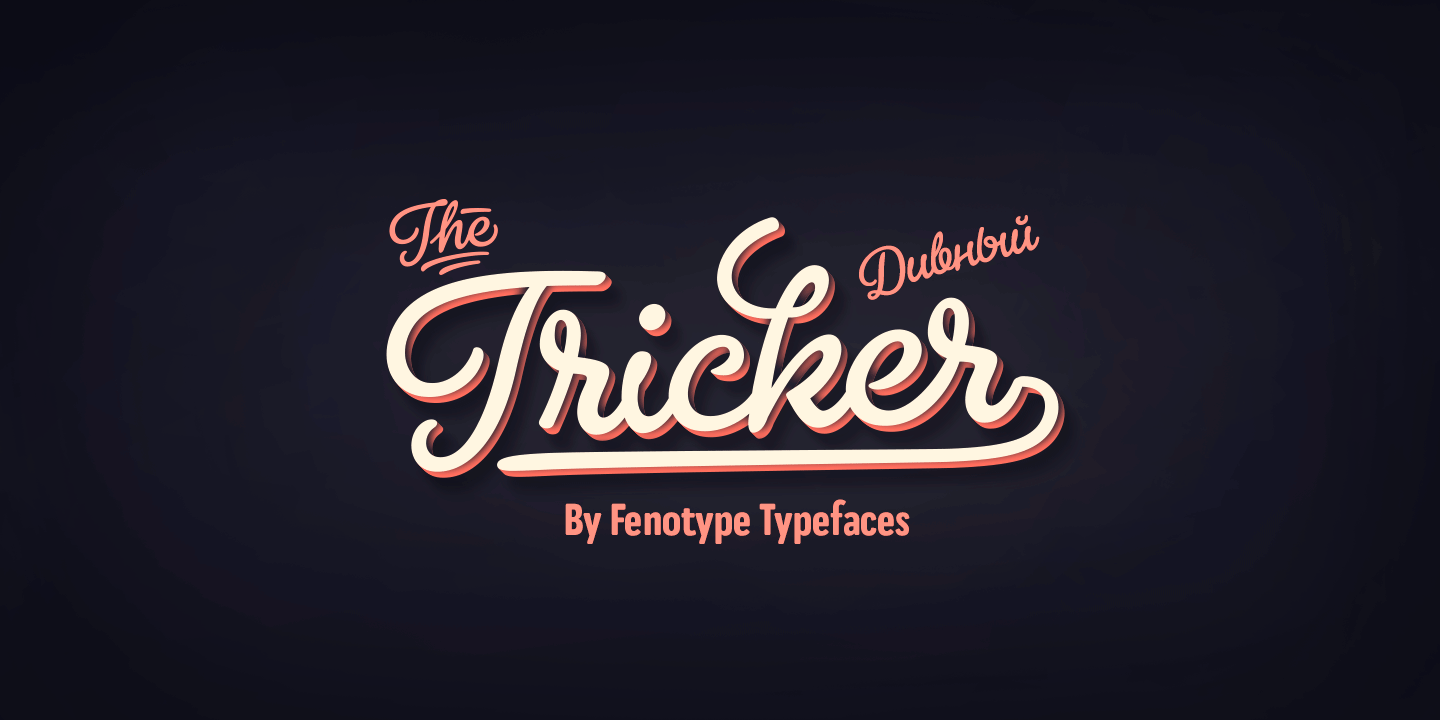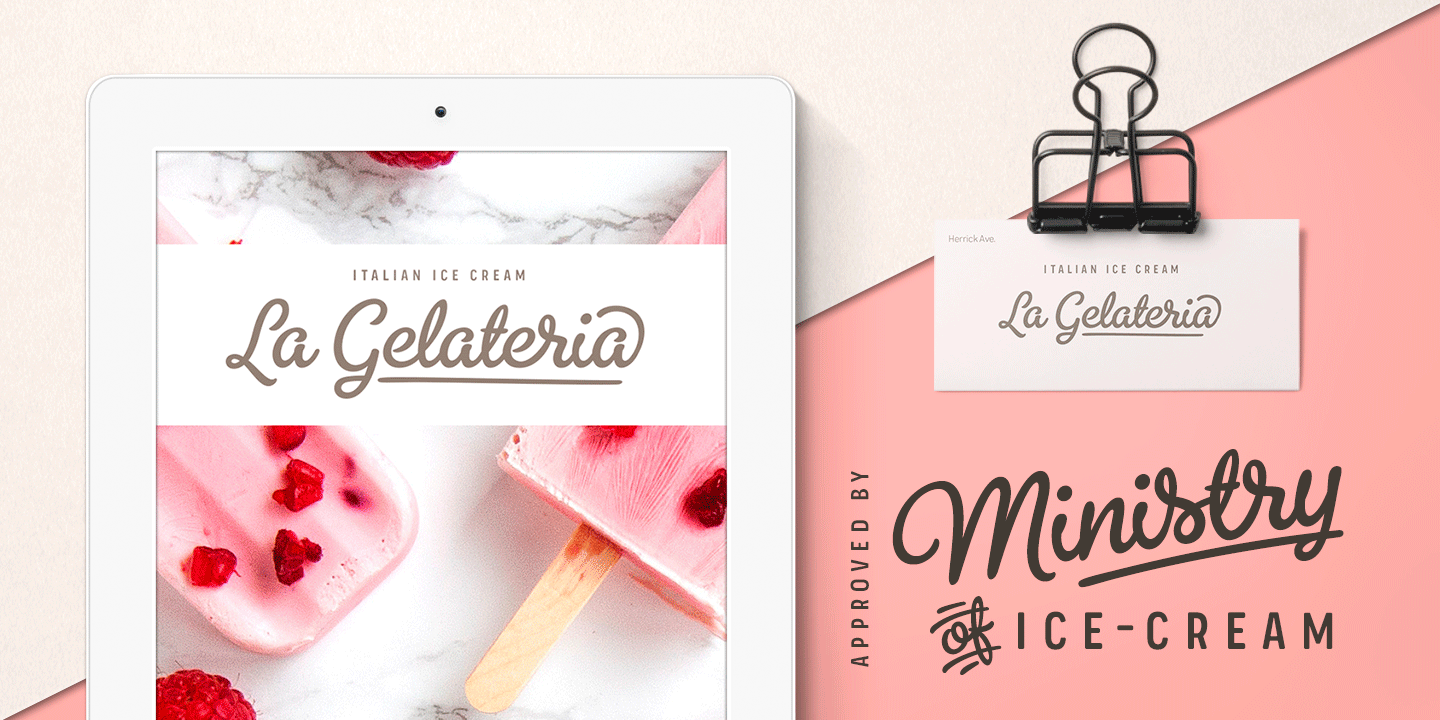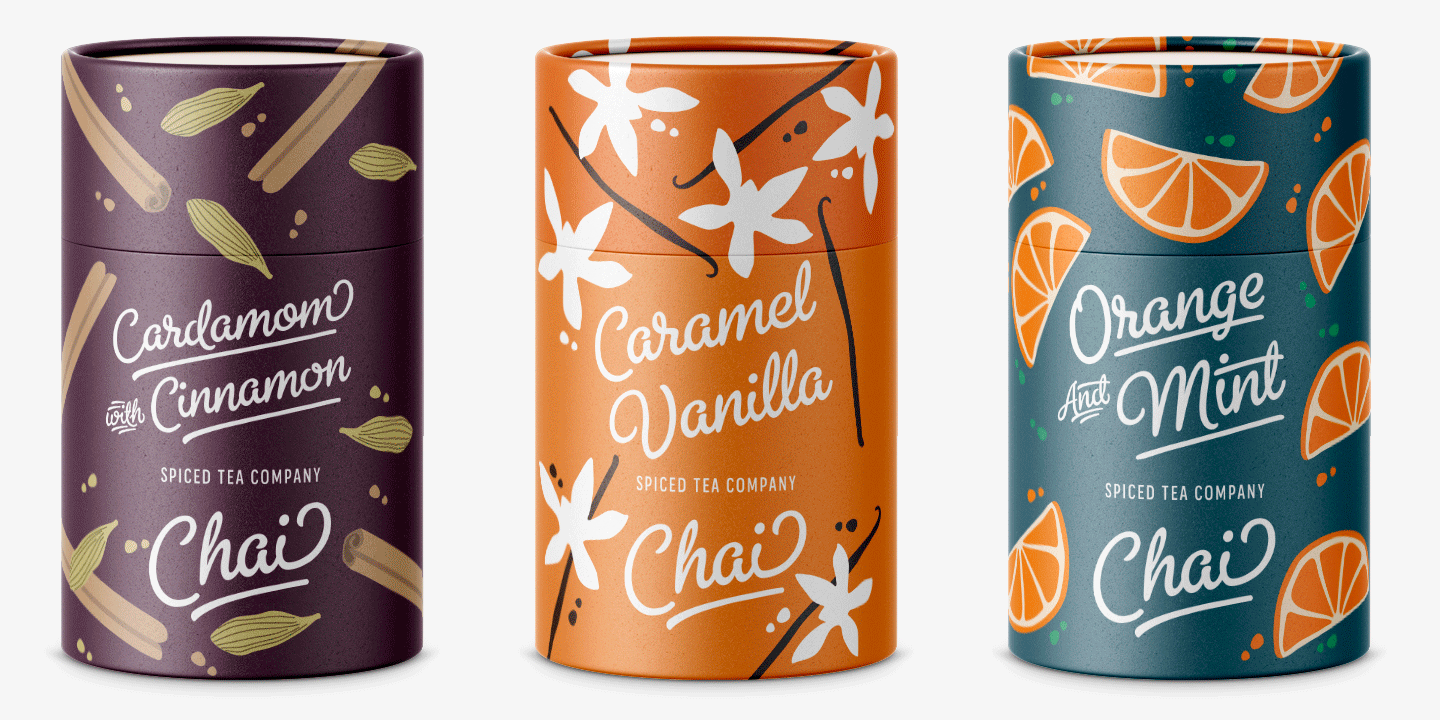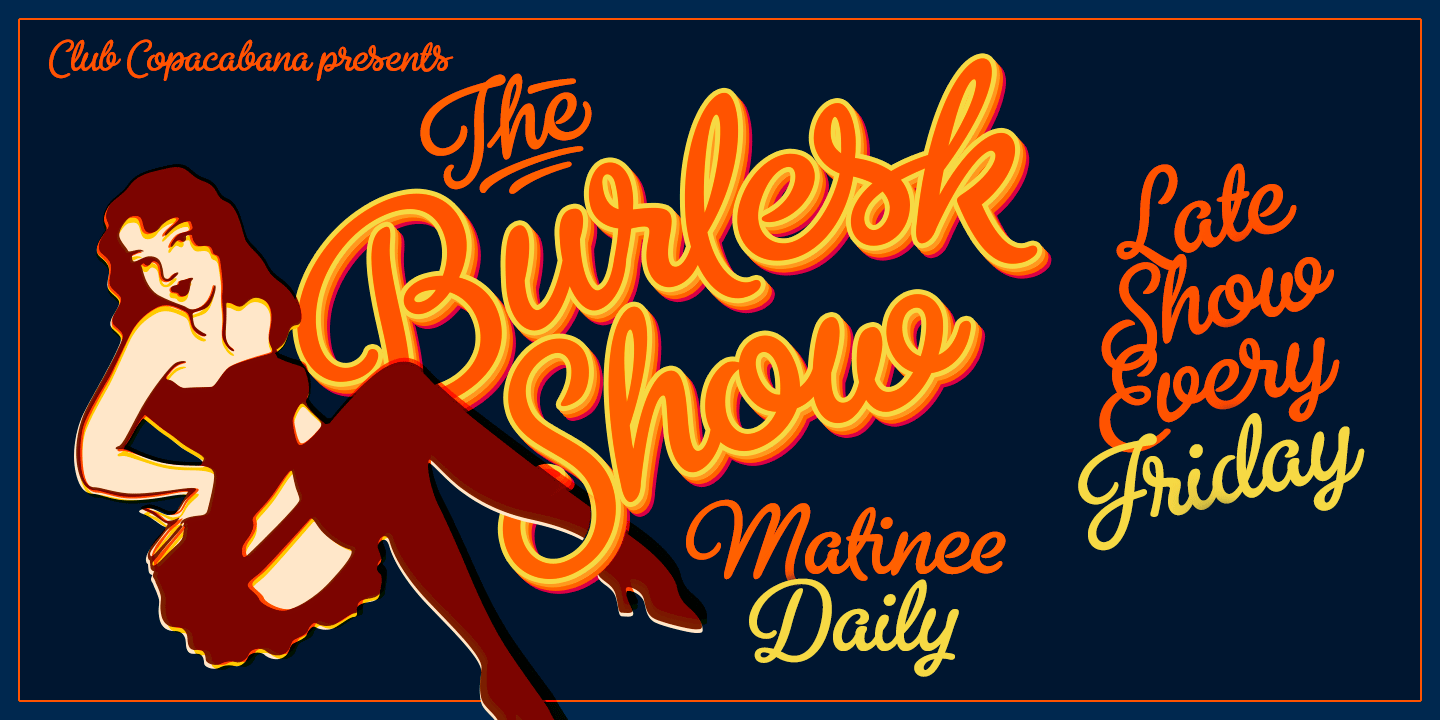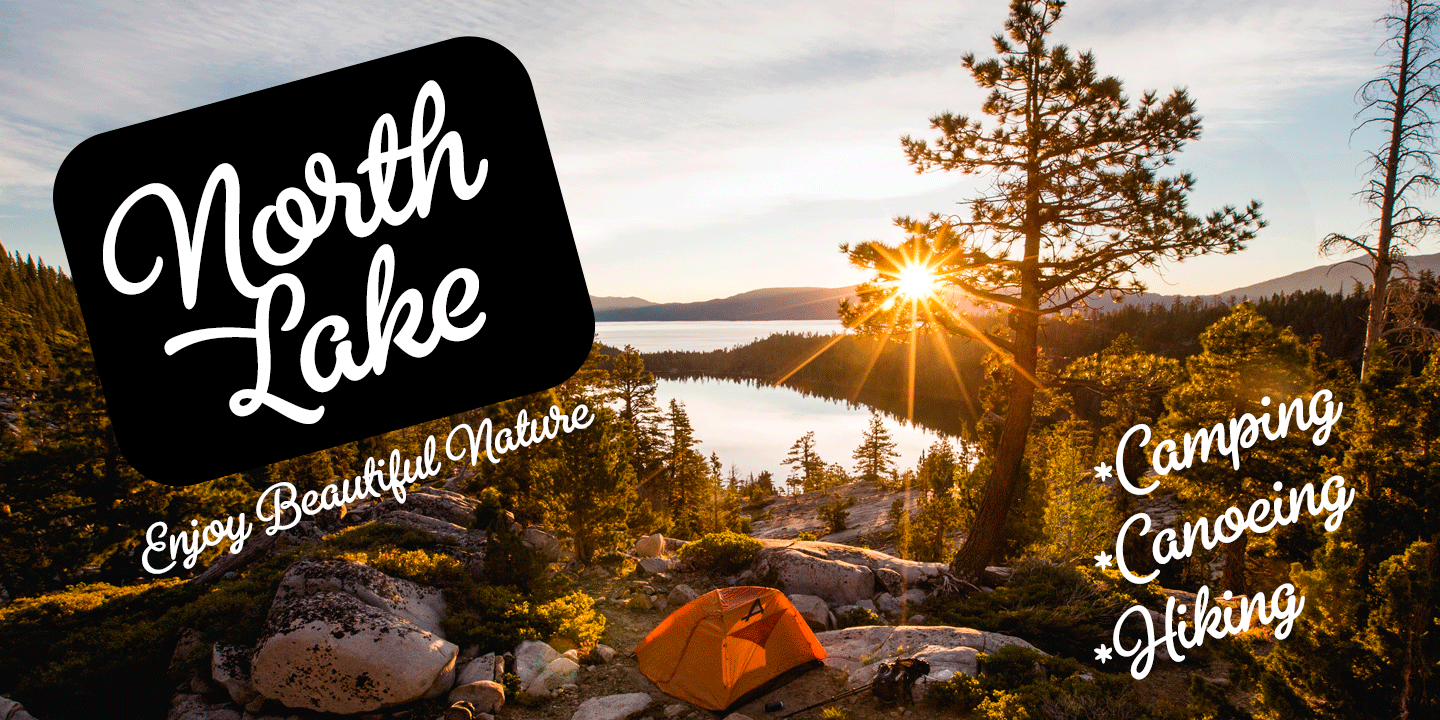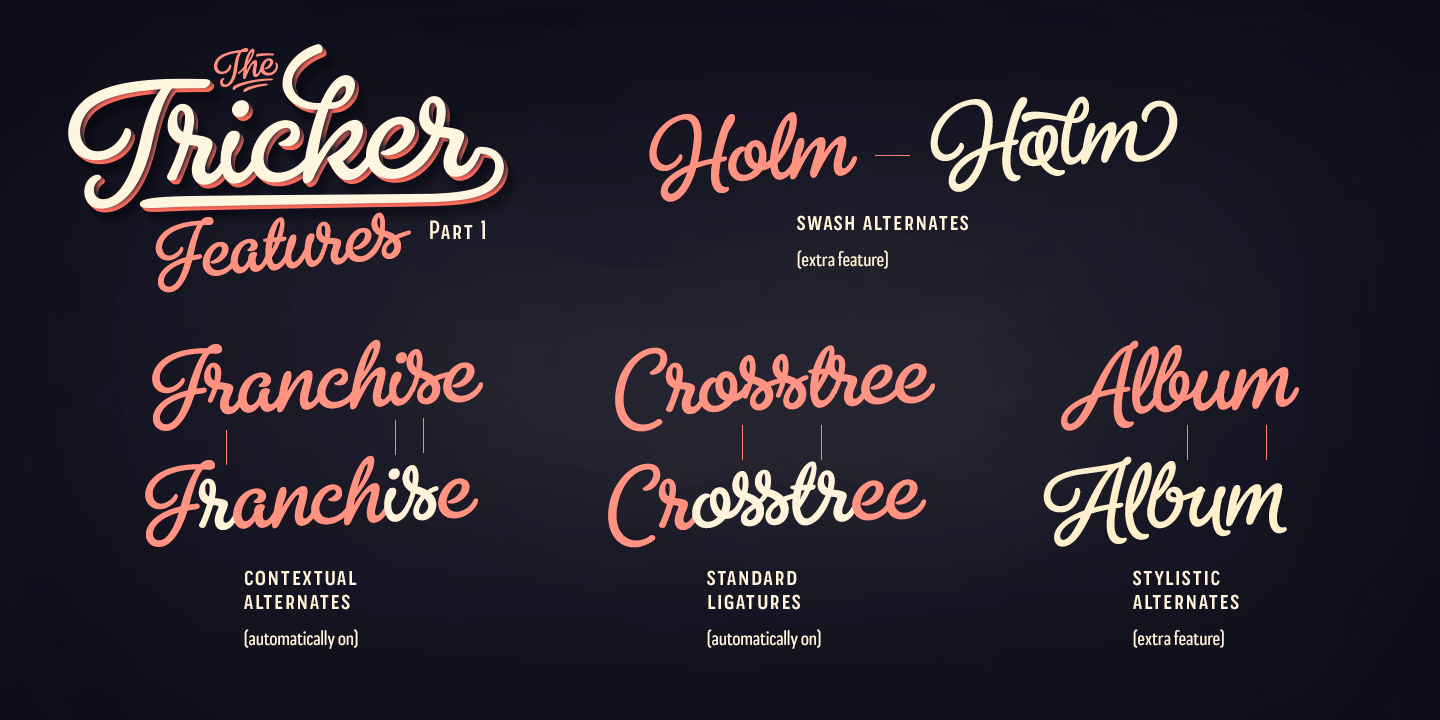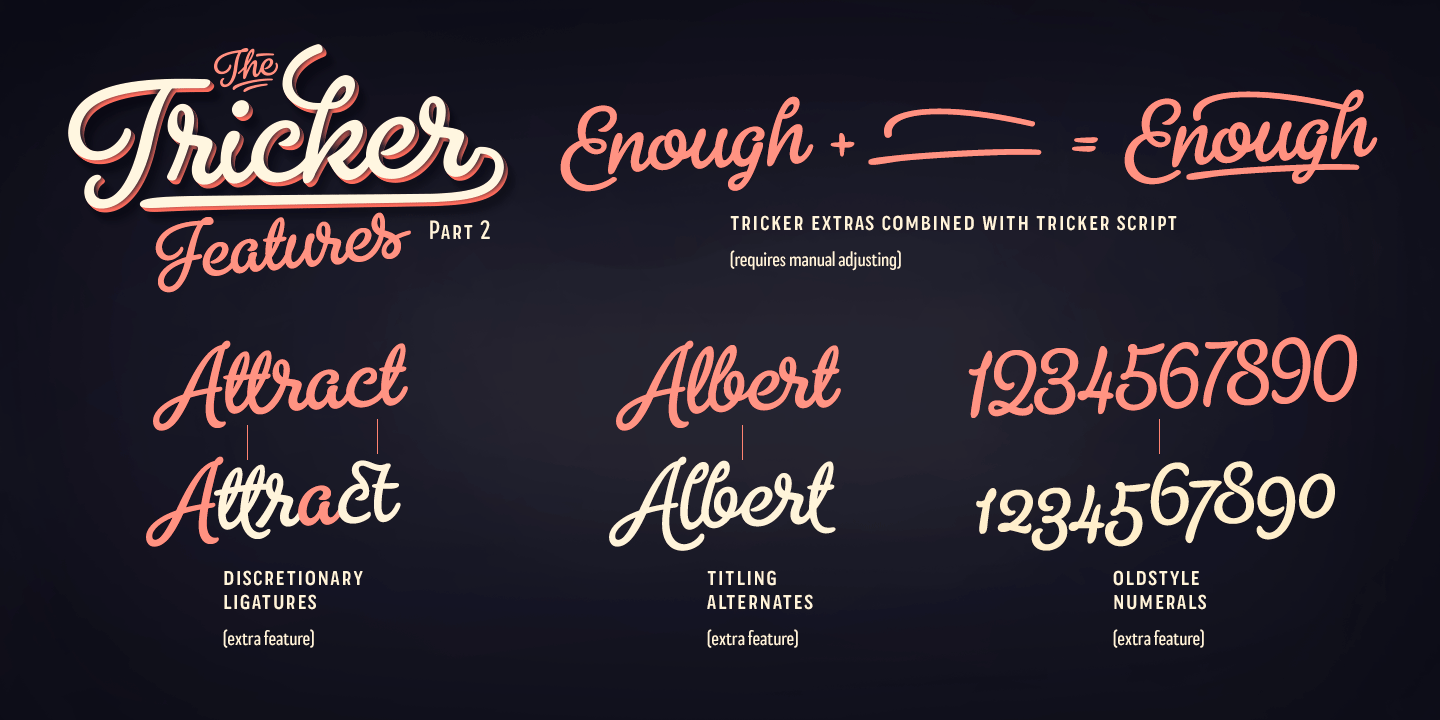
Tricker
Tricker is a smoothly rolling connected script family of two weights. Tricker has low contrast and soft features. It sports over 700 glyphs and is packed with OpenType features: Contextual Alternates and Standard Ligatures are automatically on and that's how you should normally keep them for better flow. If you need more flashy stuff you can try Stylistic, Titling or Swash Alternates to spice up your words. From Discretionary Ligatures you'll find a set of 2-4 letter funky ligatures. Tricker has Lining Numerals as standard but in text context you can try OldStyle Numerals.